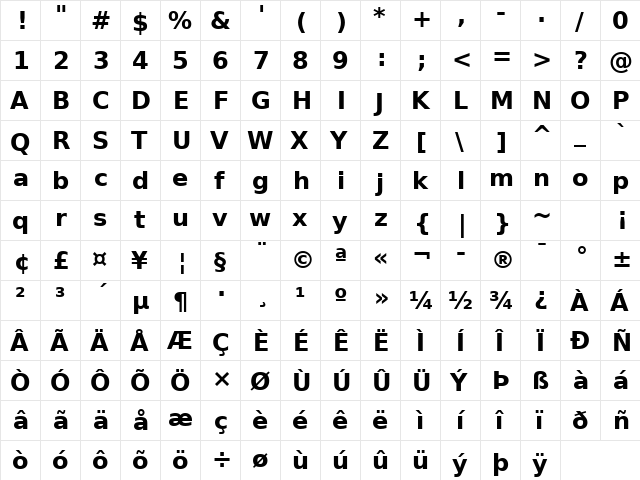
ae_AlMothnna Bold
| Foundry | Al-Amri |
| Designer | Regenerated by Nadim Shaikli |
Design Context for ae_AlMothnna Typeface
ae_AlMothnna offers clean, dependable letterforms without strong stylistic allegiance, making it a practical choice for designers who need flexibility. The heavy weight commands attention and anchors typographic hierarchies.